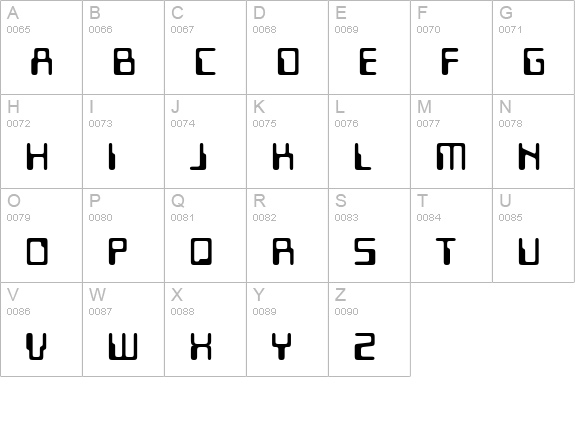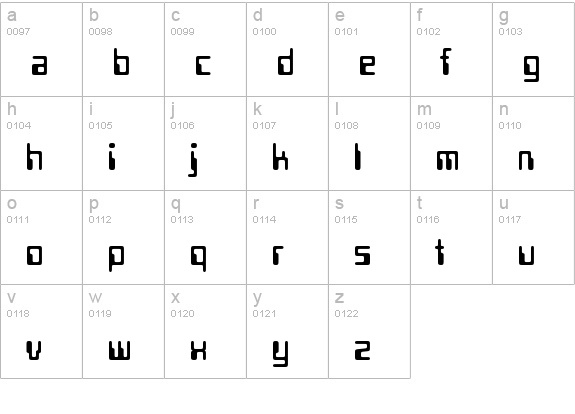
PFMicrEight font is a modern and sleek typeface that exudes professionalism and sophistication. Its clean lines and precise geometry make it perfect for financial documents, bank statements, and any other application requiring a crisp and clear appearance. The PFMicrEight font strikes the ideal balance between readability and style, making it a versatile choice for a wide range of design projects. One of the best features of PFMicrEight font is that it is available for free download at FontsMarket.com. This means that you can easily access this high-quality font without any cost, making it a valuable resource for designers, businesses, and individuals alike. With its timeless design and effortless elegance, PFMicrEight font is sure to elevate your projects and leave a lasting impression on your audience.